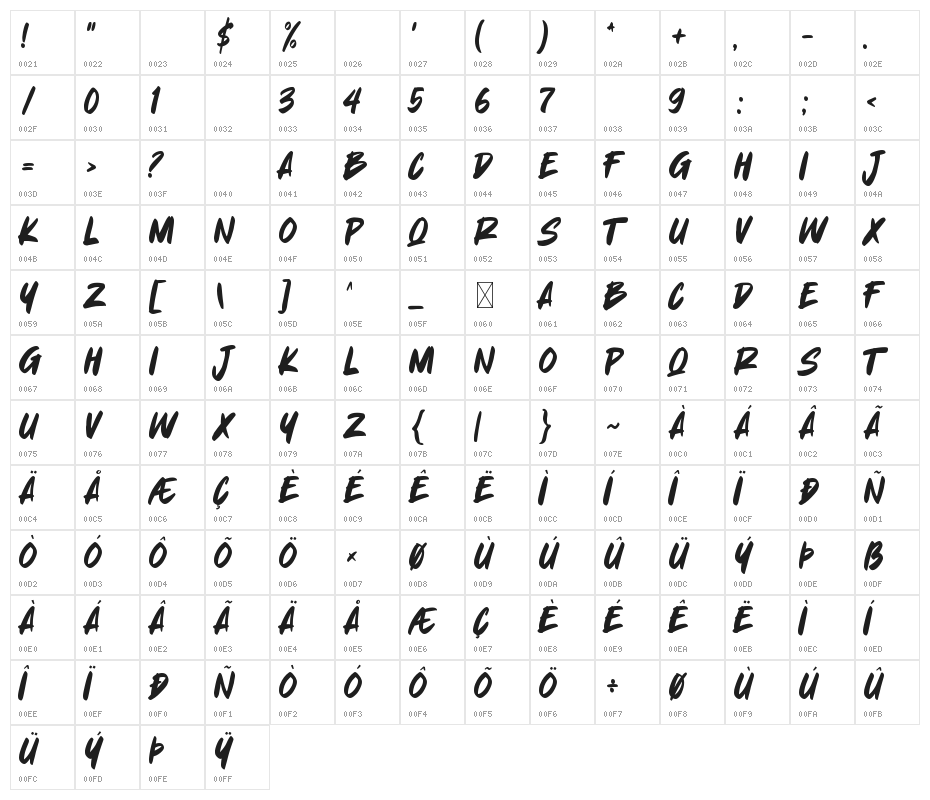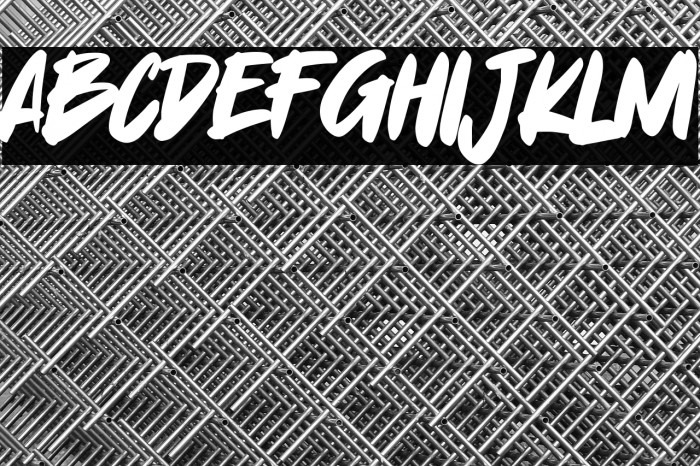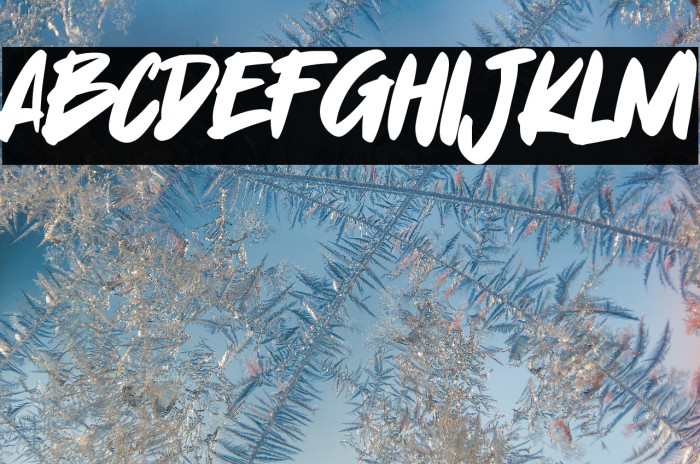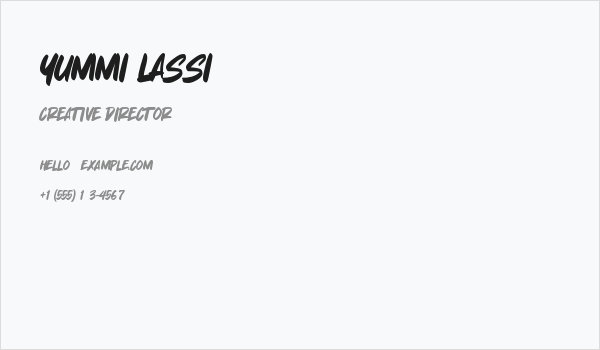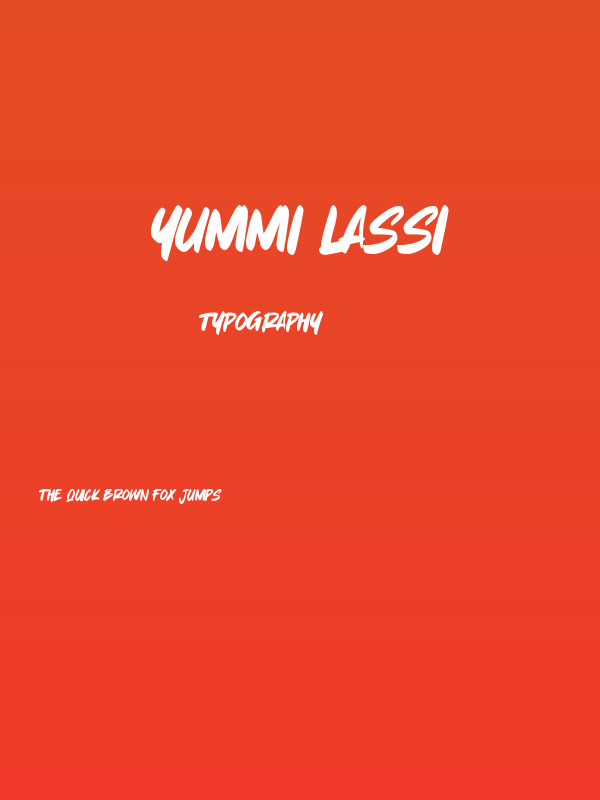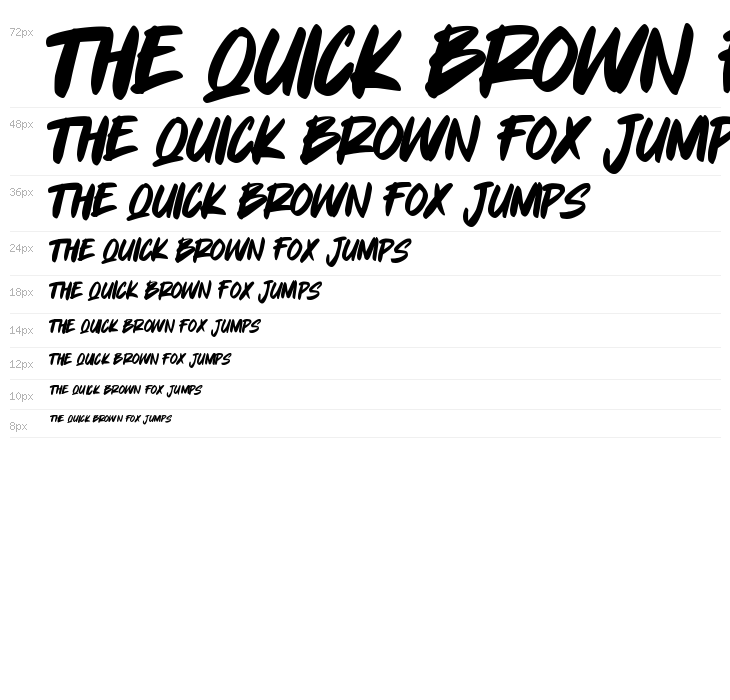
Yummi Lassi Font
Yummi Lassi Description
This font exudes a bold and energetic style, characterized by its thick, brush-like strokes that convey a sense of movement and dynamism. The letters are slightly slanted, adding to the informal and lively appearance. The uppercase and lowercase letters maintain a consistent weight, ensuring readability while still offering a playful aesthetic. The numbers and special characters follow the same design principles, making them cohesive with the overall style. This font is ideal for projects that require a personal touch or a sense of spontaneity.
| Proposed Projects | Perfect for branding, posters, social media graphics, and any design needing a lively, personal touch. |